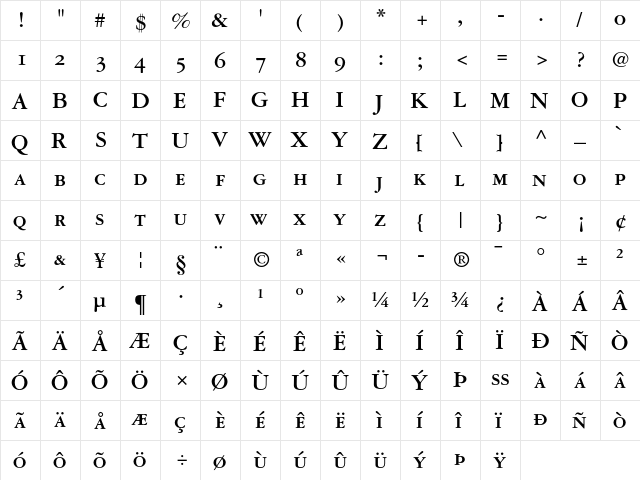
Garamond 3 Bold SC Font Preview
Garamond 3 Bold SC
Garamond 3 Bold SC Font Details
| Style | Bold SC |
Design Context for Garamond 3 Typeface
Garamond 3 takes a measured approach to typography — its balanced proportions and neutral character make it a reliable workhorse for both digital and print work. Its bold stroke weight gives it real presence on the page.